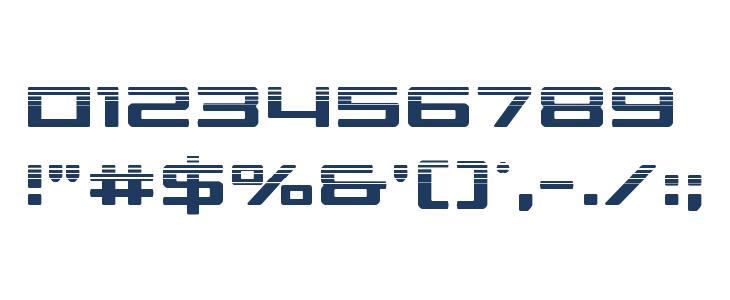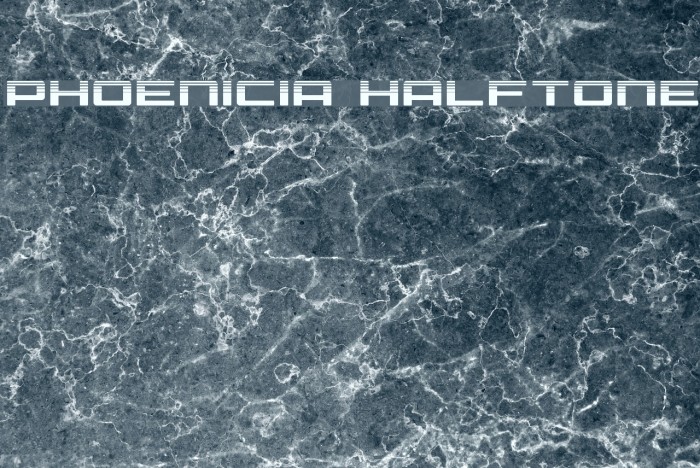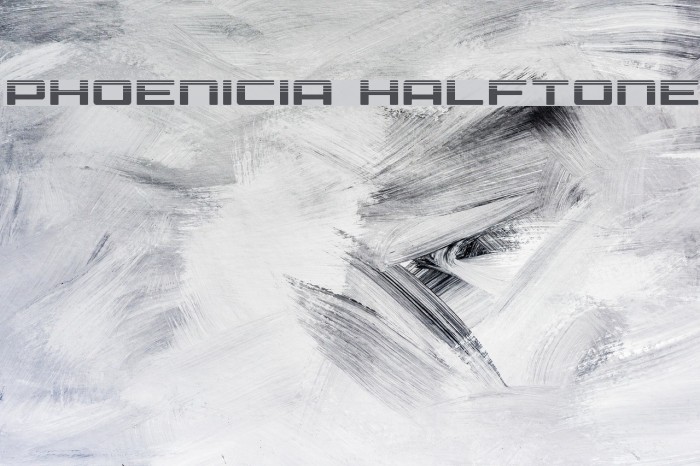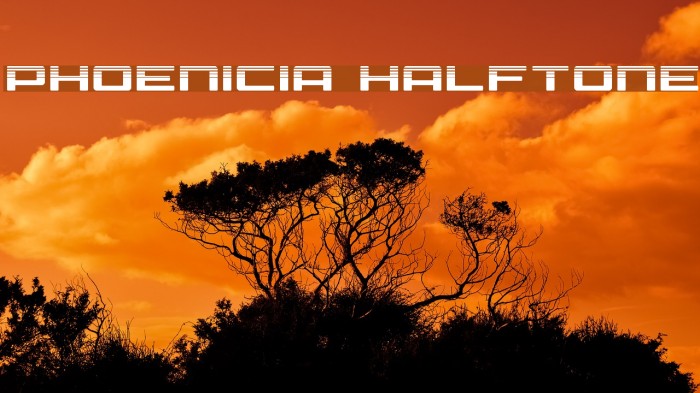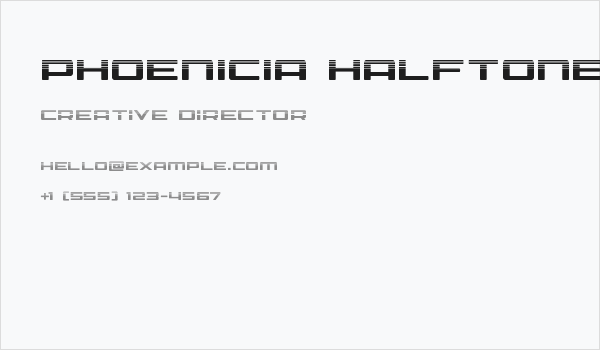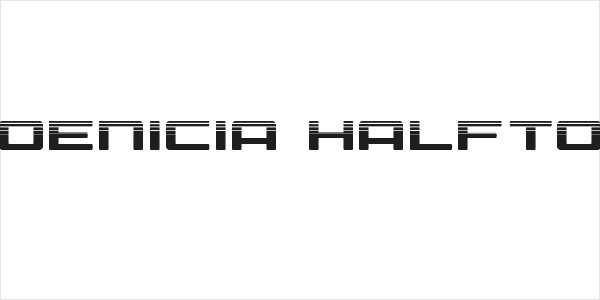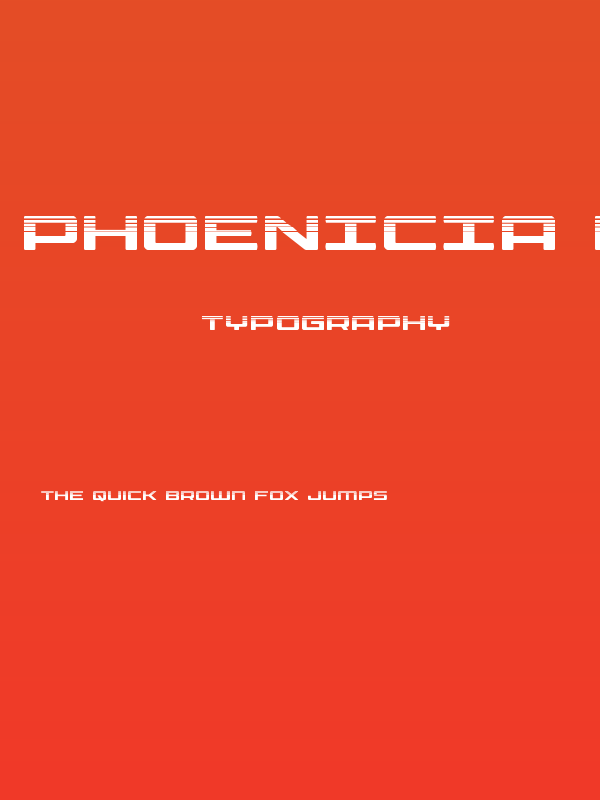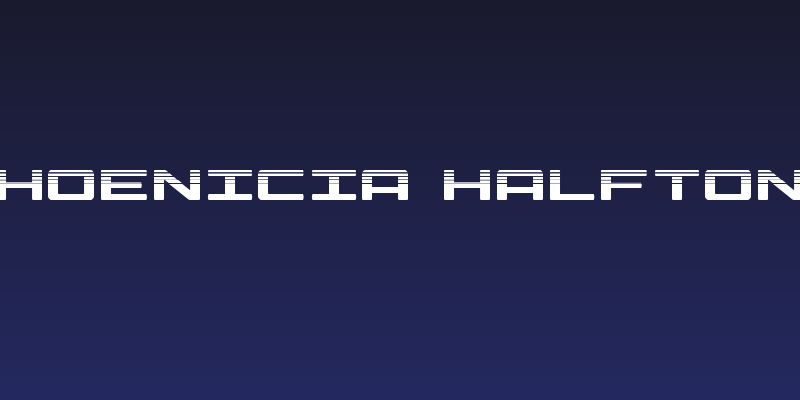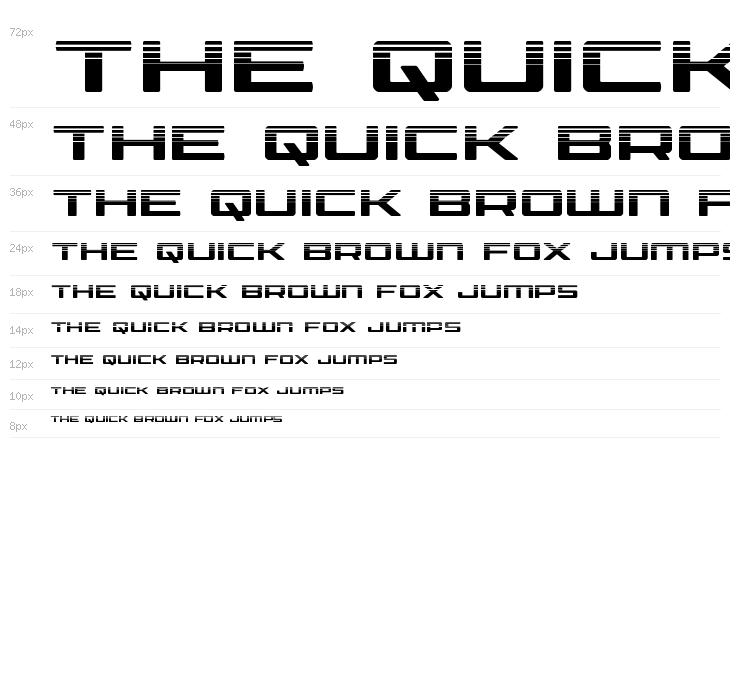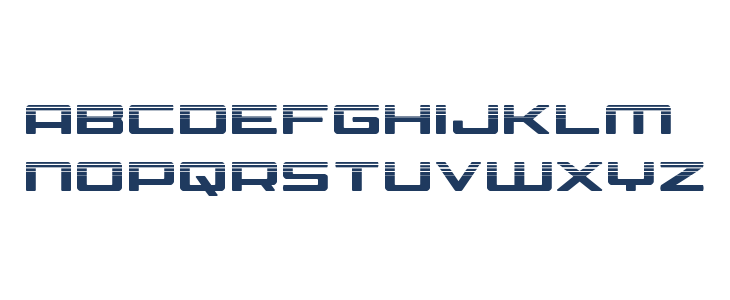
Phoenicia Halftone Font
Phoenicia Halftone Description
This font features a unique halftone design with a futuristic and digital aesthetic. The characters are constructed with a series of horizontal lines that create a sense of movement and depth. The uppercase and lowercase letters maintain a consistent geometric structure, while the numbers and special characters follow the same stylistic approach. The overall appearance is bold and striking, making it ideal for modern and tech-oriented projects. The spacing between characters is tight, enhancing the compact and cohesive look of the text.
| Proposed Projects | Ideal for technology branding, digital art projects, sci-fi themed designs, and modern advertising. |